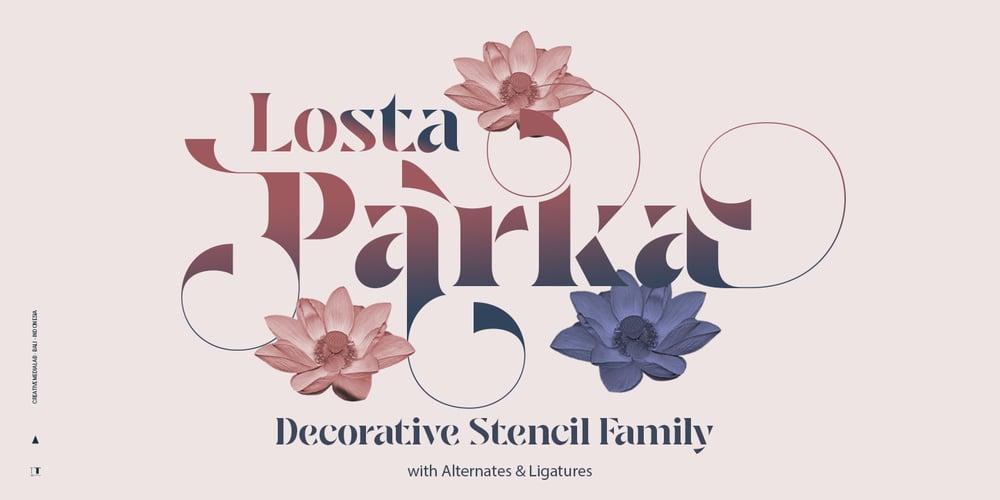
Losta Parka Font Family was designed by Kadek Mahardika and published by Creativemedialab. Losta Parka contains 9 styles and family package options. Parka is a unique and fashionable stencil font with tons of alternatives and ligatures.Softly curved alternates match the solid and masculine looks for the balance of shape.Perfect for any titles, branding, logo, and many more.